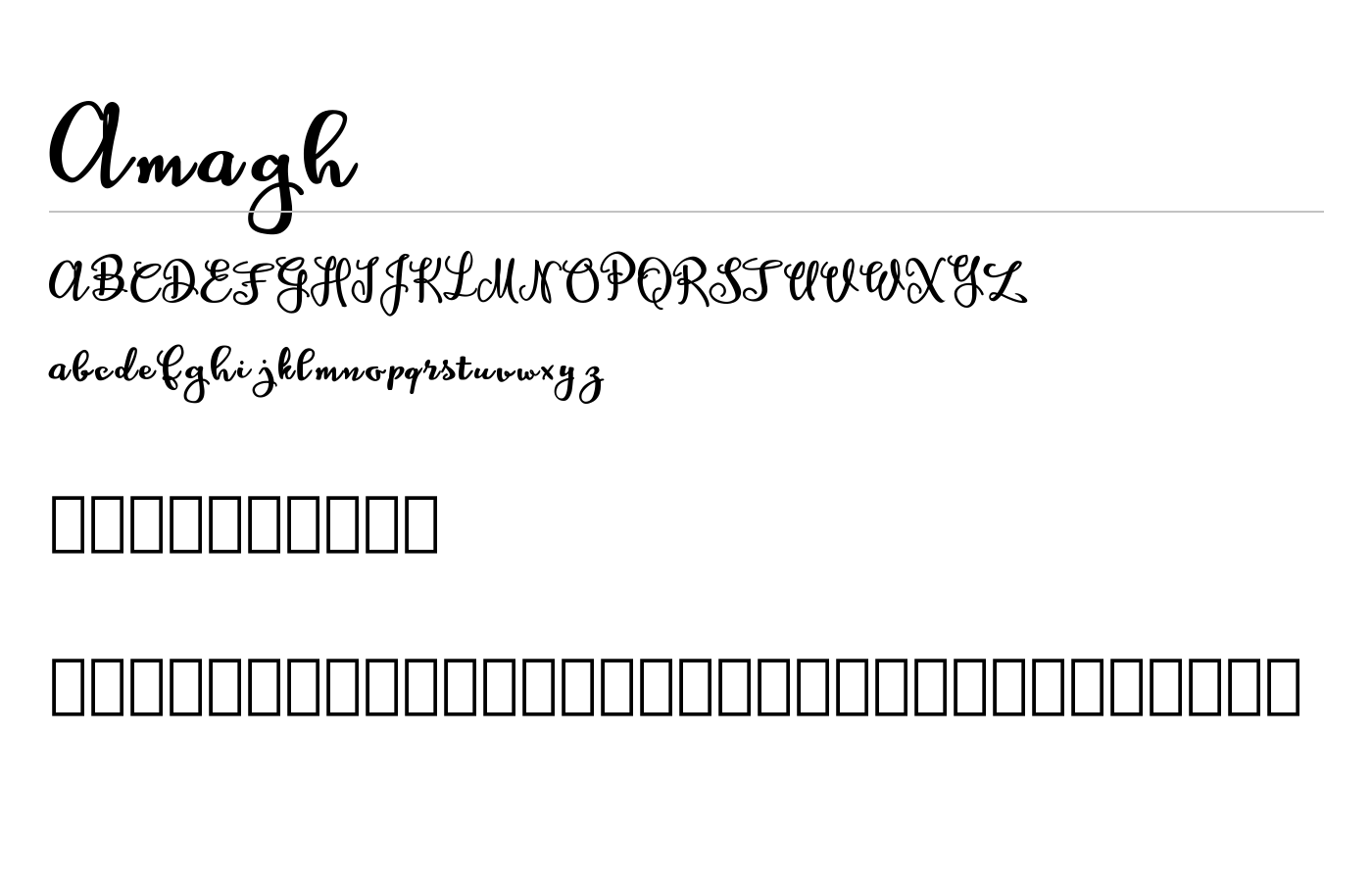
Amagh is a charming script font that combines elegant, flowing curves with decorative, playful letterforms, making it feel both sophisticated and friendly. Its smooth, medium-weight strokes and unique character shapes work beautifully for creative branding, invitations, and headlines where a personal, artistic touch is desired. This font shines best in designs wanting to convey warmth and individuality while maintaining a polished, stylish aesthetic.
Amagh Font
About Amagh Font